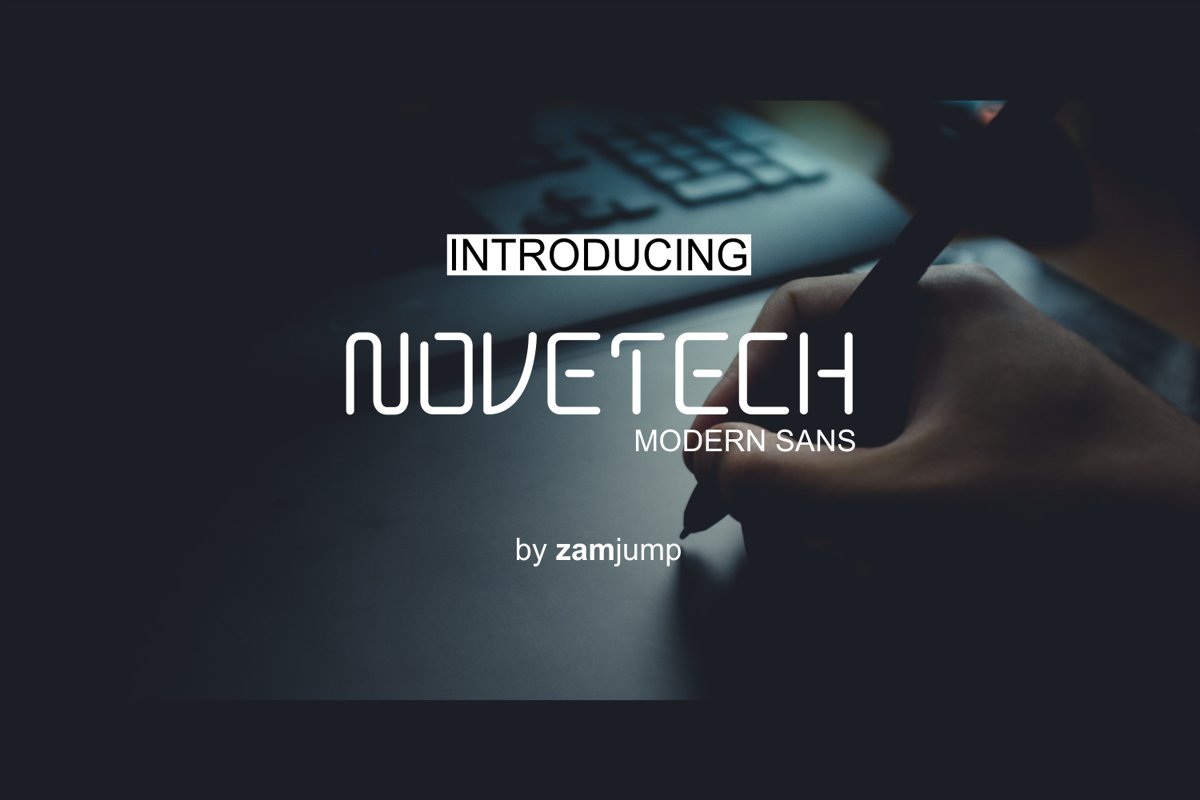
NOVETECH
Novetech
Novetech is an elegant, clean and consistent display font. This font is made for those who want their products to look dynamic and elegant and modern. well suited to be installed on automotive products, beauty products, t-shirt products, promos on posters, as well as tagline on modern company logos.